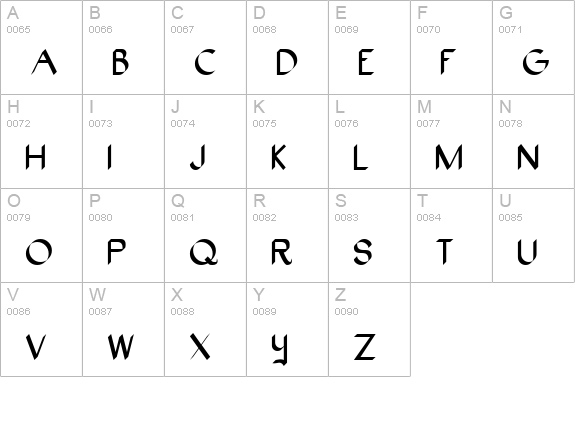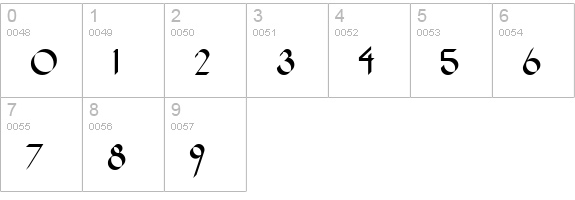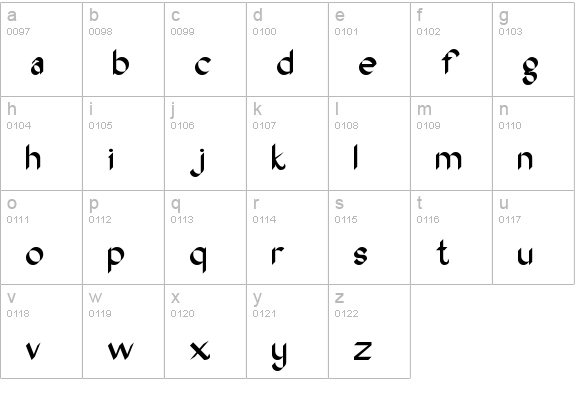
Oak Wood Font Details
Oak Wood font is a rustic and charming typeface that exudes warmth and natural beauty. Inspired by the texture and grain of oak wood, this font is perfect for adding a touch of nature to your designs. Its sturdy and timeless appearance makes it ideal for a wide range of projects, from branding to packaging to signage. Best of all, Oak Wood font is available for free download at FontsMarket.com. This means you can easily add this unique and versatile font to your collection without any cost. Don't miss out on the opportunity to enhance your projects with the distinctive appeal of Oak Wood font. Download it today and let your creativity flourish!